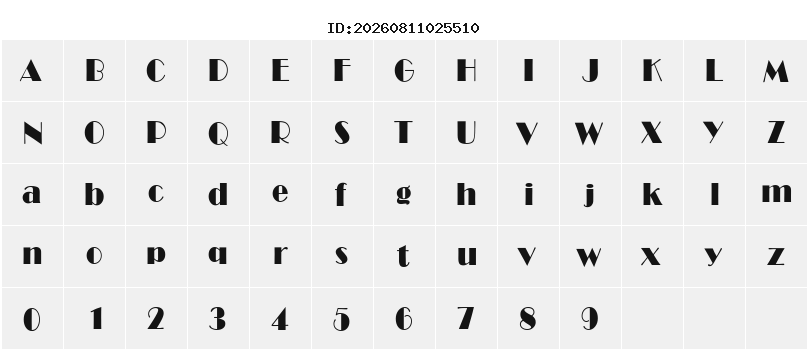
RoyaltonCnd-Normal Preview
• Font Name: RoyaltonCnd-Normal
• Full Font Name: RoyaltonCnd-Normal
• PostScript Name: RoyaltonCnd-Normal
About RoyaltonCnd-Normal.ttf
RoyaltonCnd-Normal.ttf is a modern, elegant sans-serif font designed for ultimate readability and visual harmony. Perfect for branding, headlines, web design, and print materials.